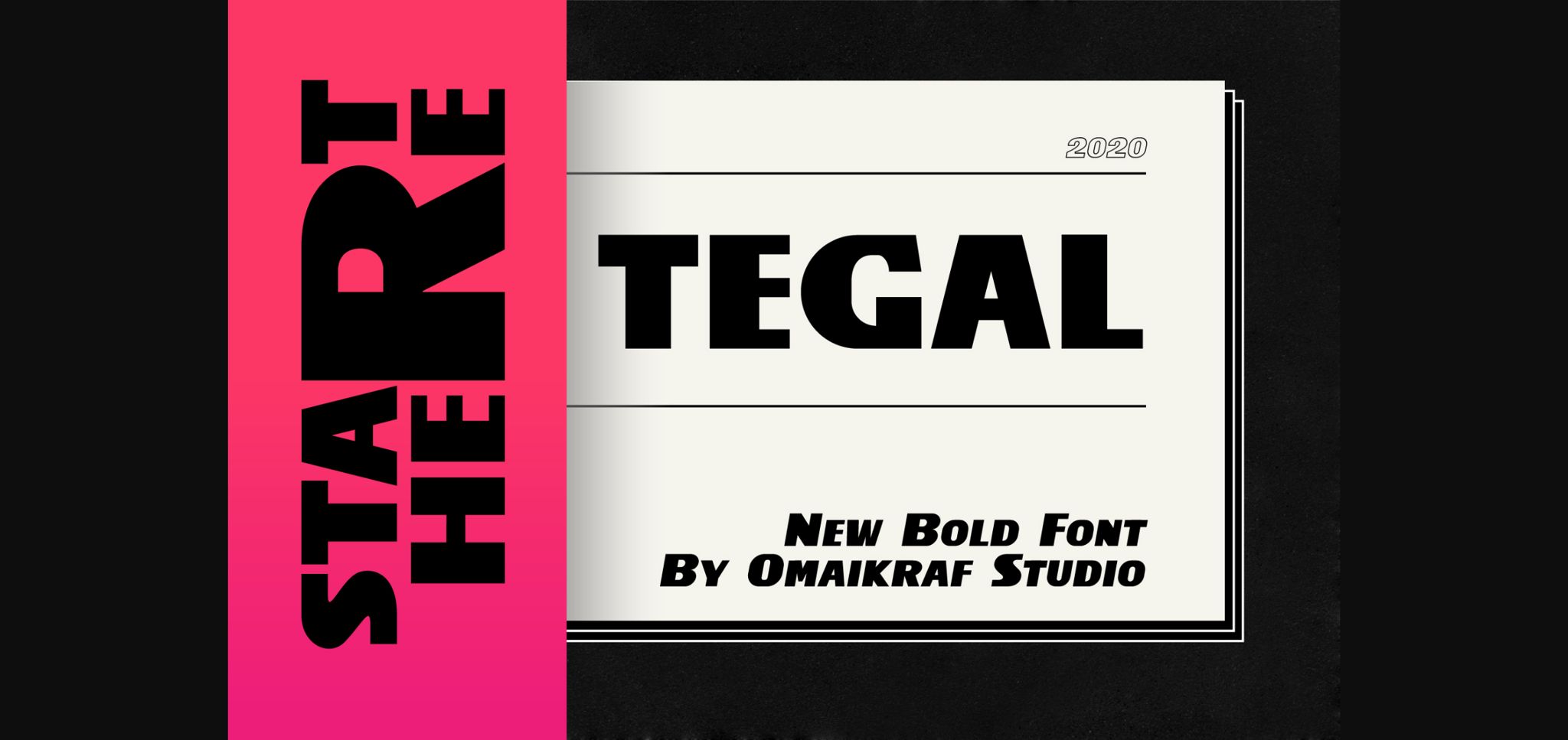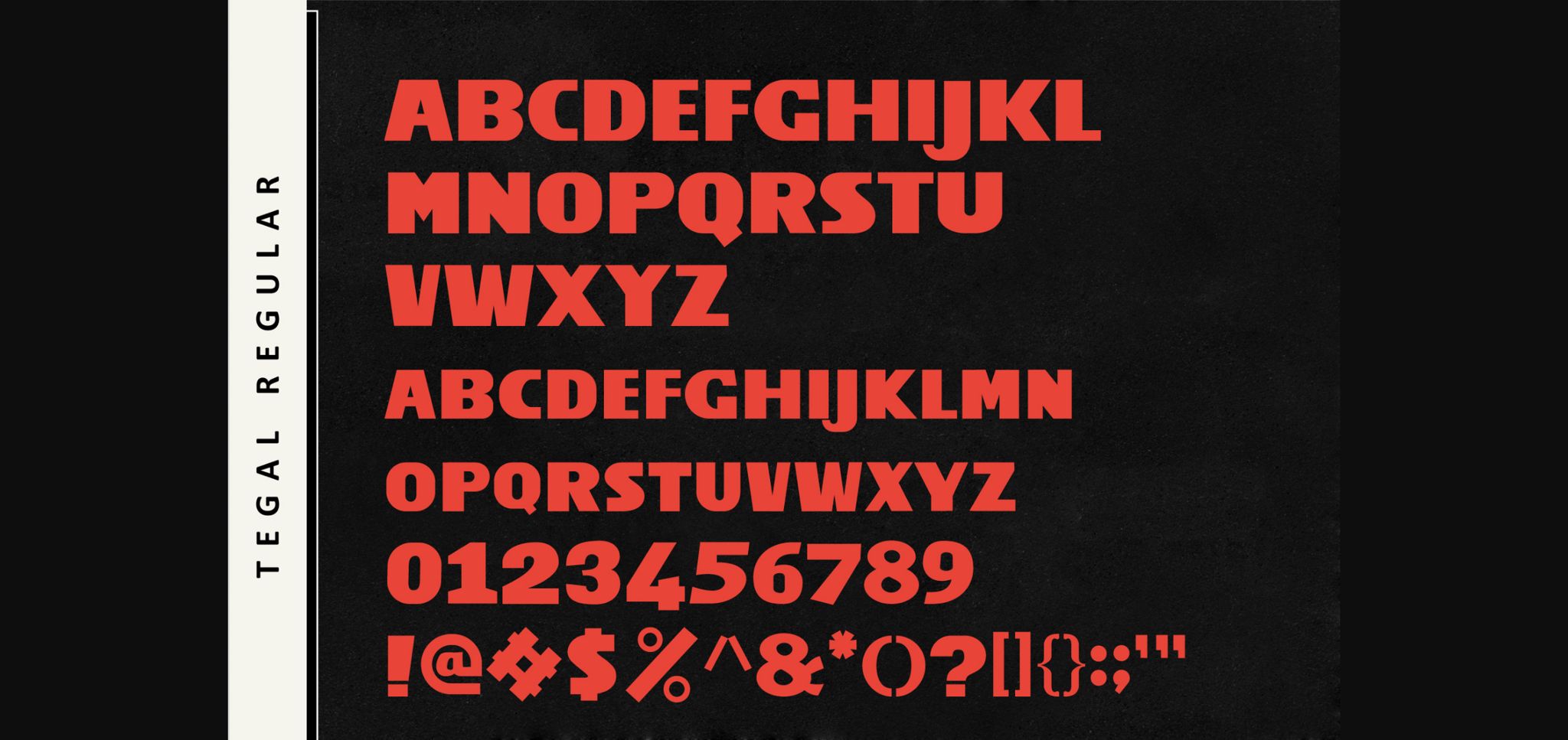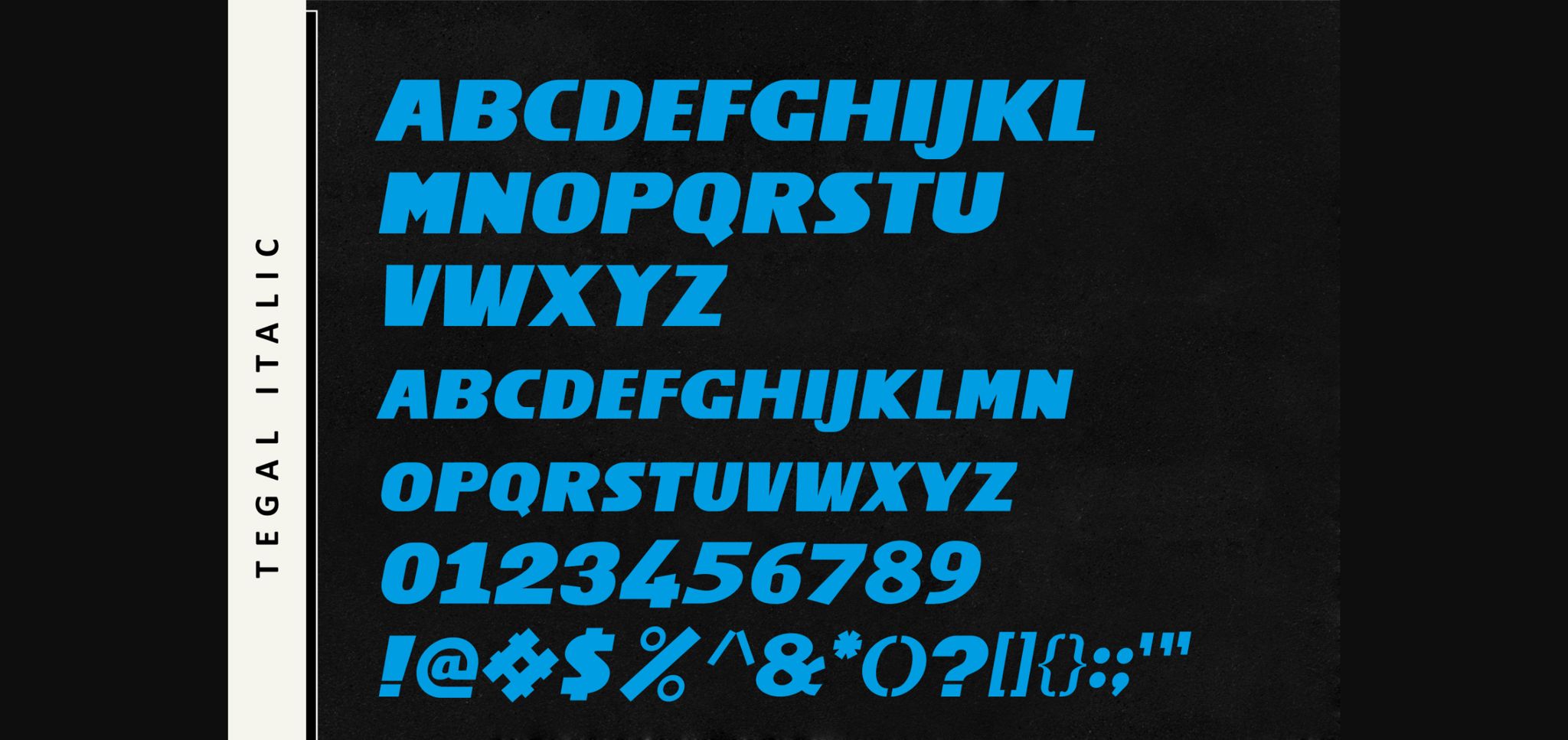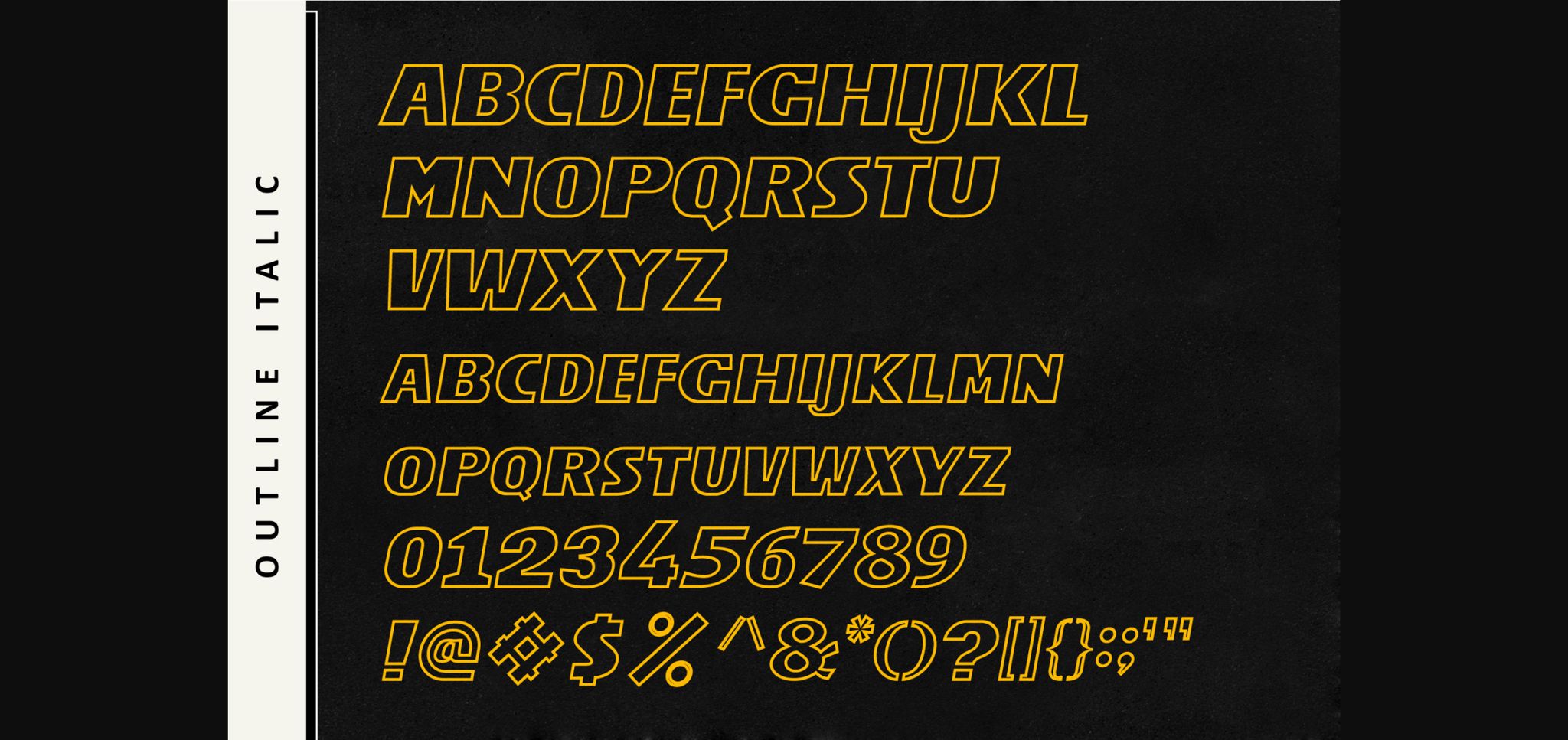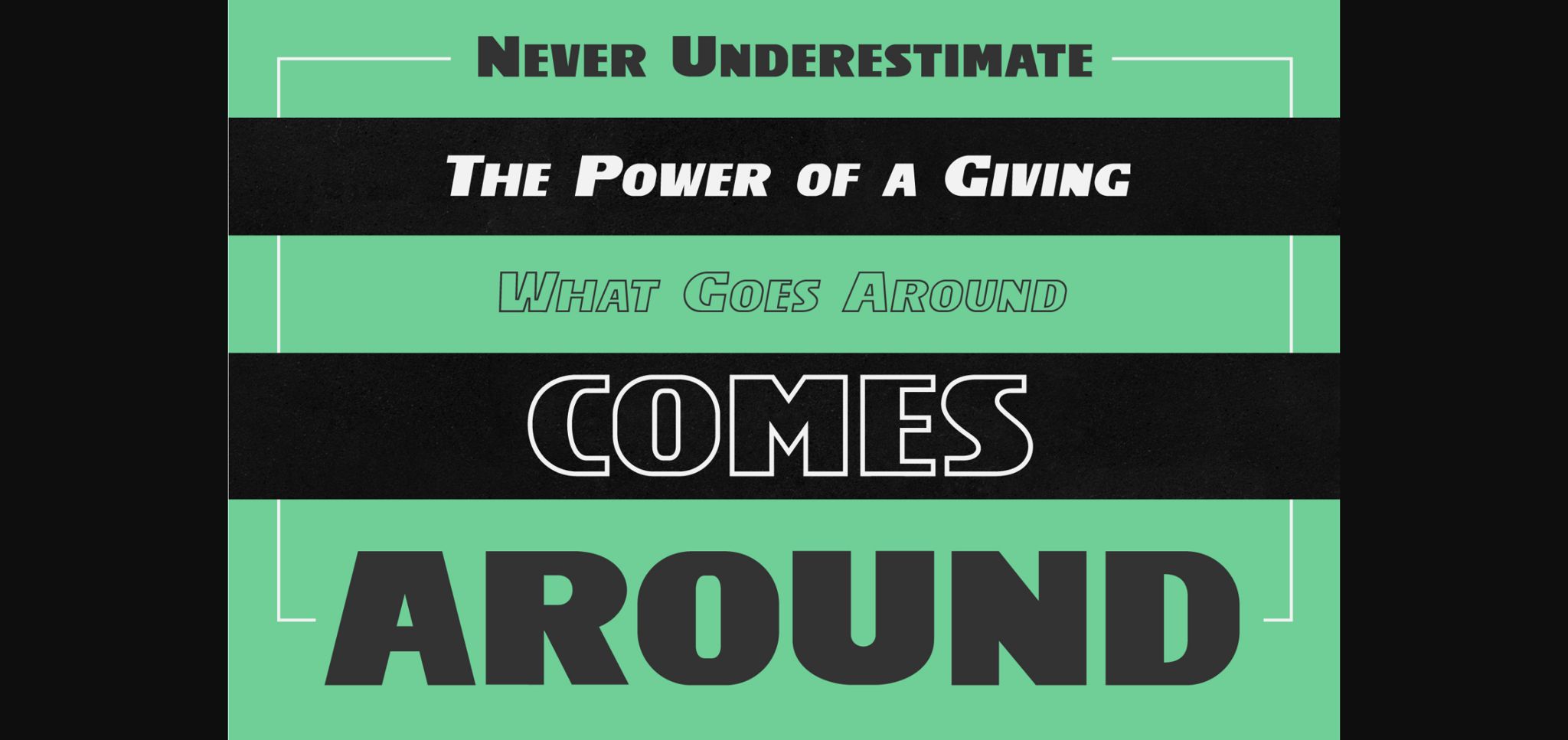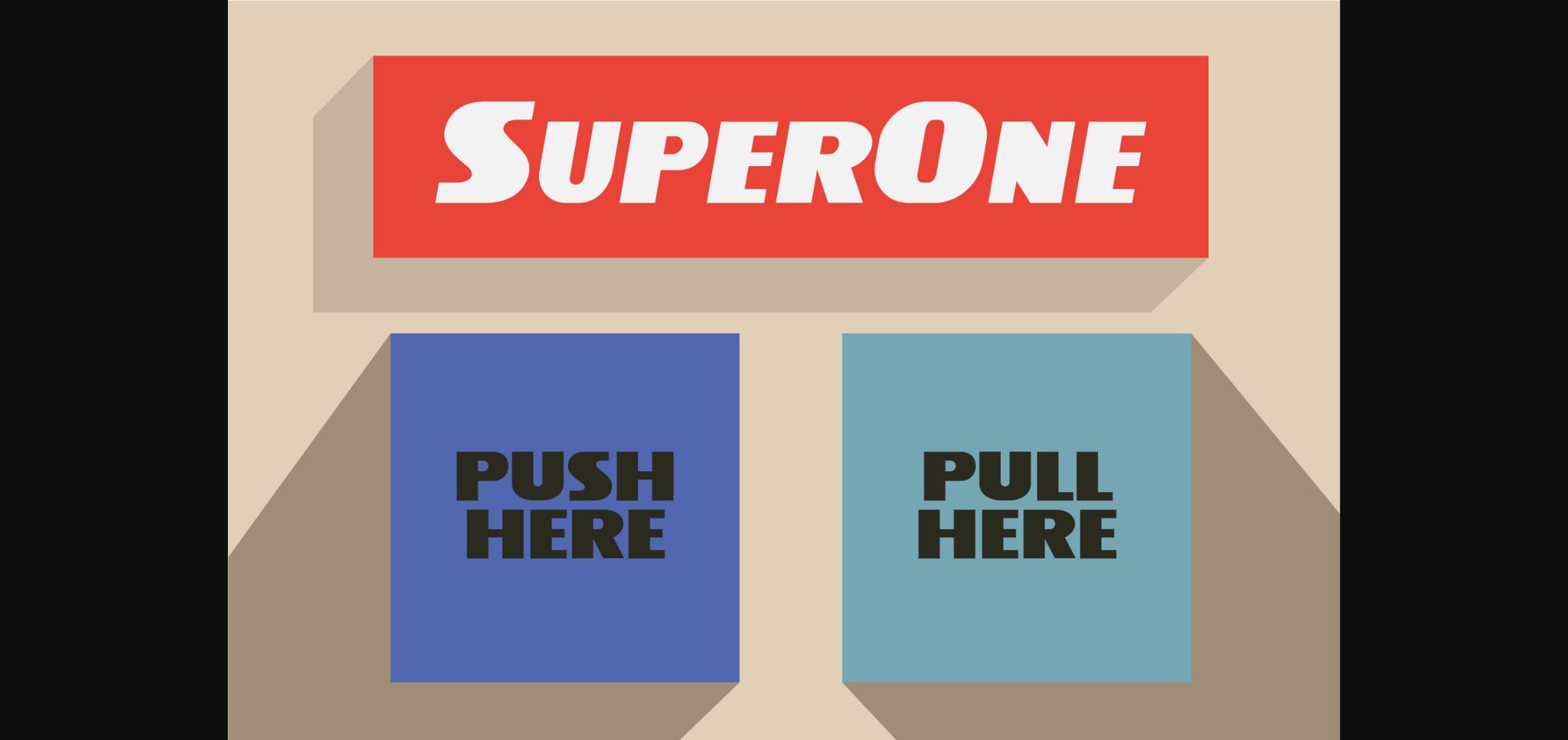
About Tegal Font
Tegal is a strong and bold sans serif typeface. Tegal is available in four different styles and they are a perfect match for brand identity, posters, films, headlines, block letters, logo designs, and much more.